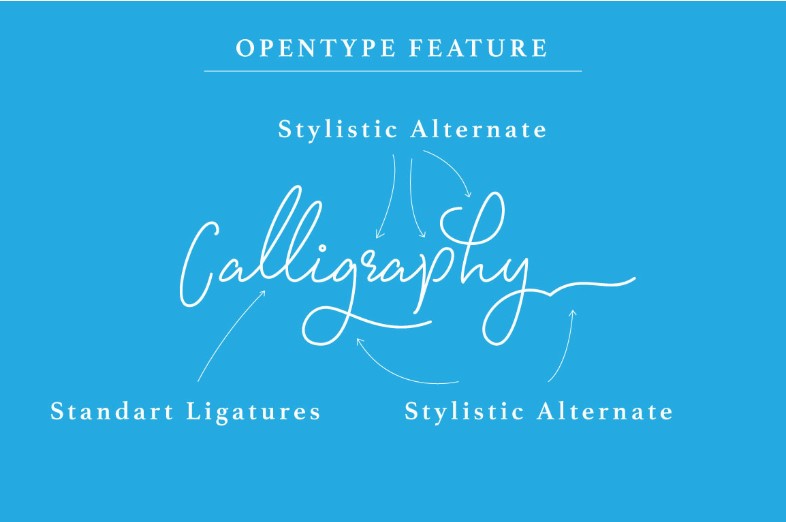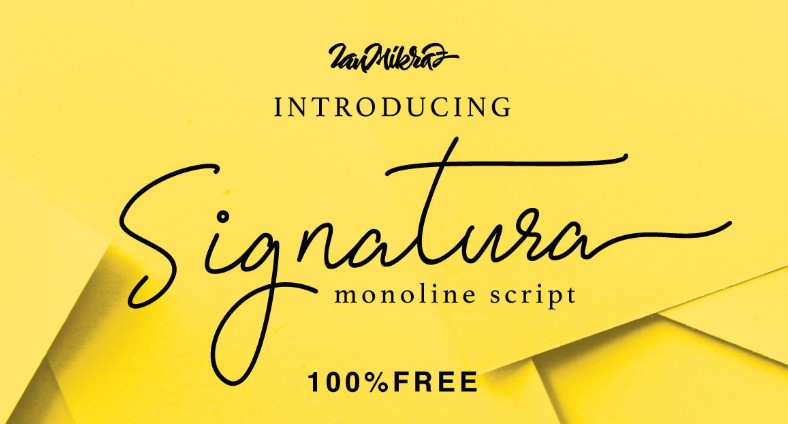
Signatura Monoline Script Font
Signatura Monoline Script Font comes beneath the class of the define fonts. This is a Sacramento typeface this is pretty just like the Quentin font and it’s far present internal google font The totally well-known content material creator from barlow font the all proper reserved for this fashionable typeface. And he creates it for financial rolling stone font present-day writing and springs. He has taken the concept from which changed into as speedy as released.
In this manner. It has supported about a hundred and ten sorts of international languages. Signatura Monoline Script Font Free Now that you can capable of moreover be referred to as it the prevailing-day model of the arabella font. Because of the truth now it has contained the complete ancient factors with strength.
The complete letters collectively with this precise font function top-notch primarily based clearly actually in fact format. This typeface is likewise indexed within the google fonts. Download It has availably top-notch in an unmarried large kind however this type has many varieties of d din font. Furthermore, proudly owning the layout.
All of the letters which embody this superman font feature top-notch primarily based totally definitely simply in reality smooth layout. A famous typeface for those who love strolling with lettering is anders typeface . Its bubbly look also can need to make this a fantastic font.